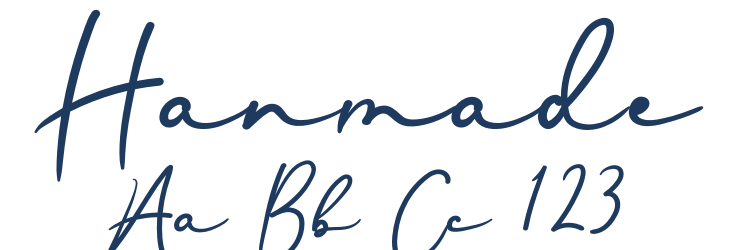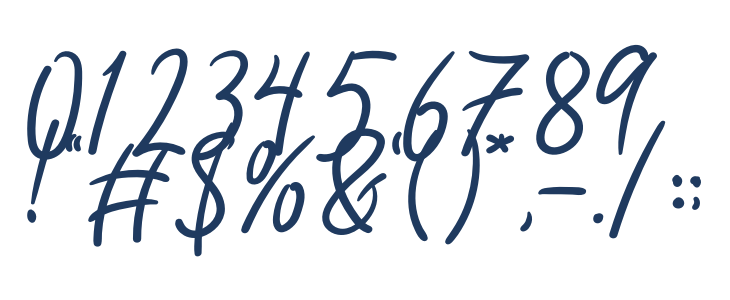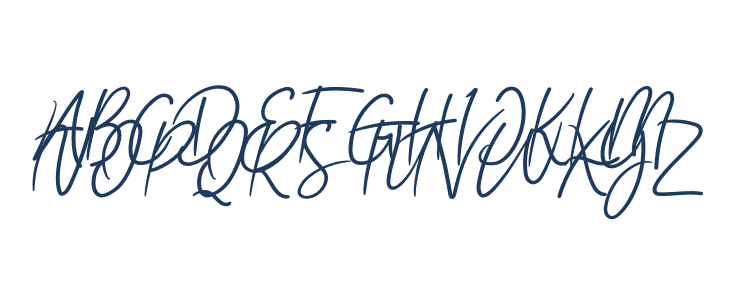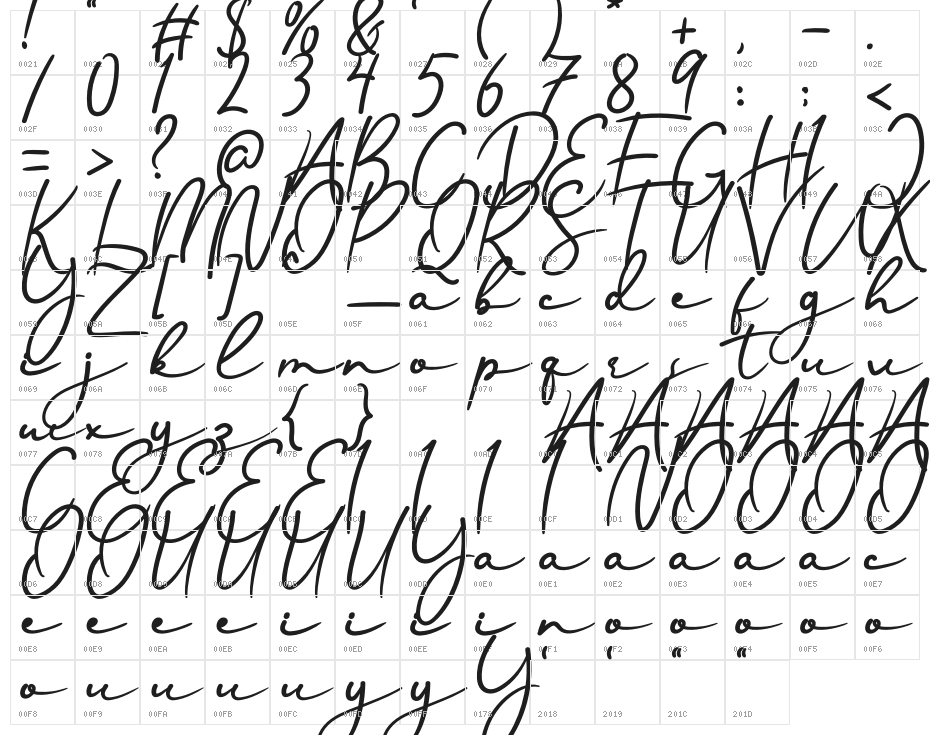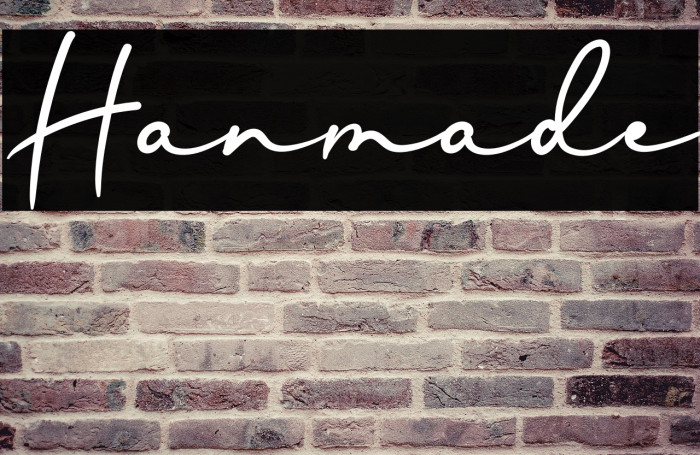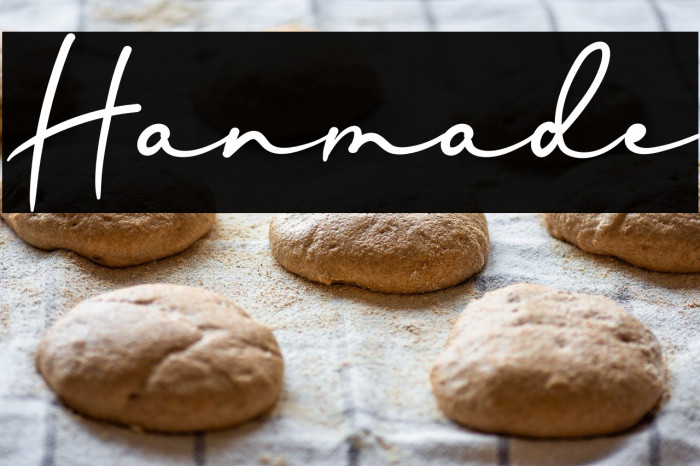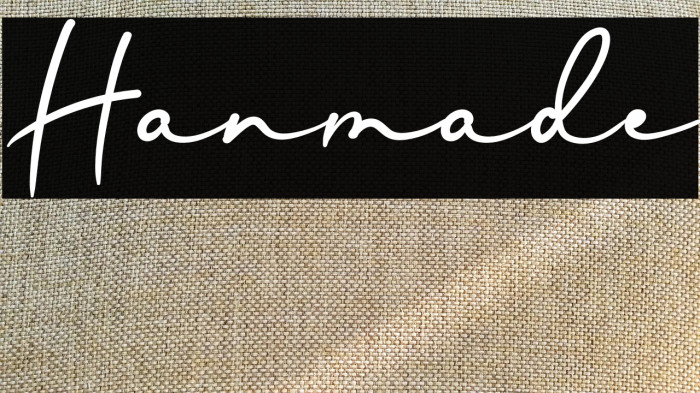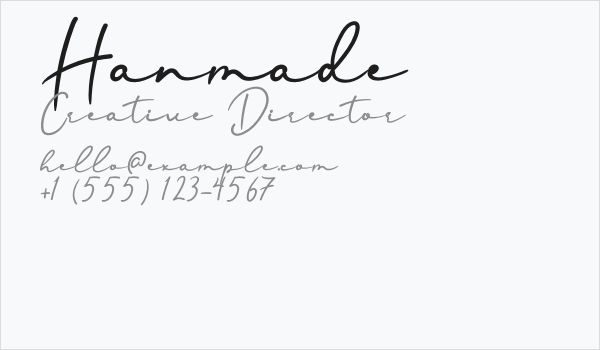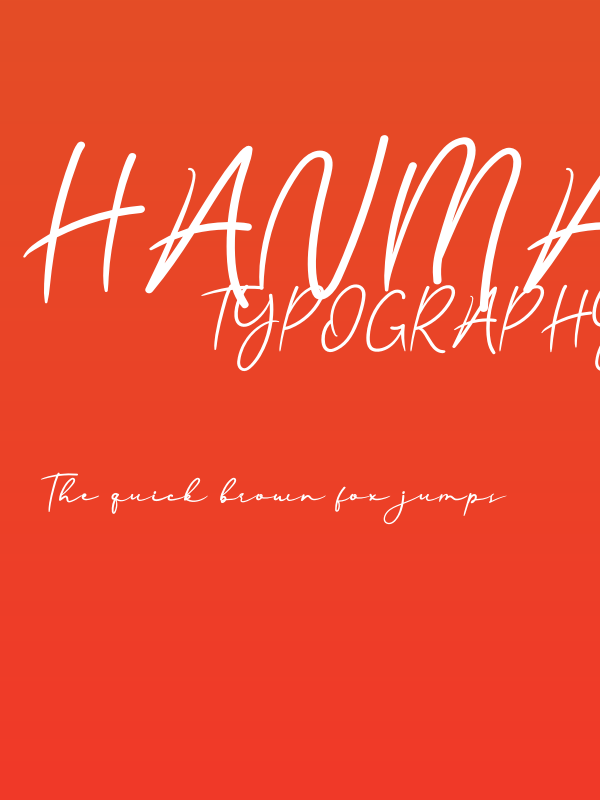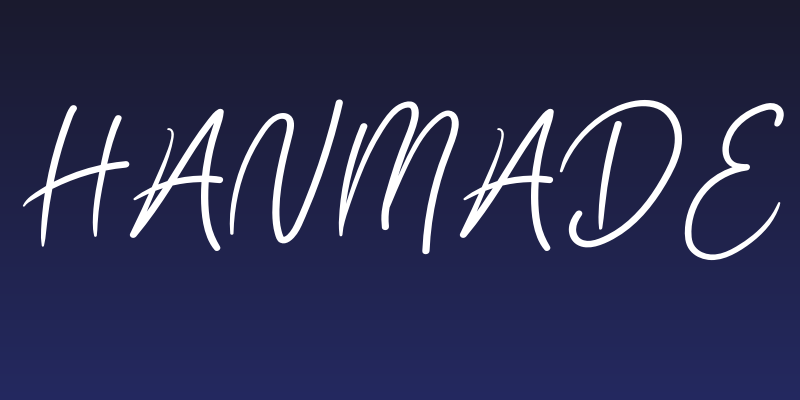
Hanmade Font
Hanmade Description
A casual, handwritten script font with fluid, connected strokes and a natural, organic feel. The characters are slightly slanted, with varying line thickness and playful loops, mimicking authentic handwriting.
| Overall Style | Decorative, Casual, Modern |
| Use Case | Logos, Headlines, Invitations, Social media posts |
| Proposed Projects | Invitations, greeting cards, personal branding, quotes, social media graphics. |